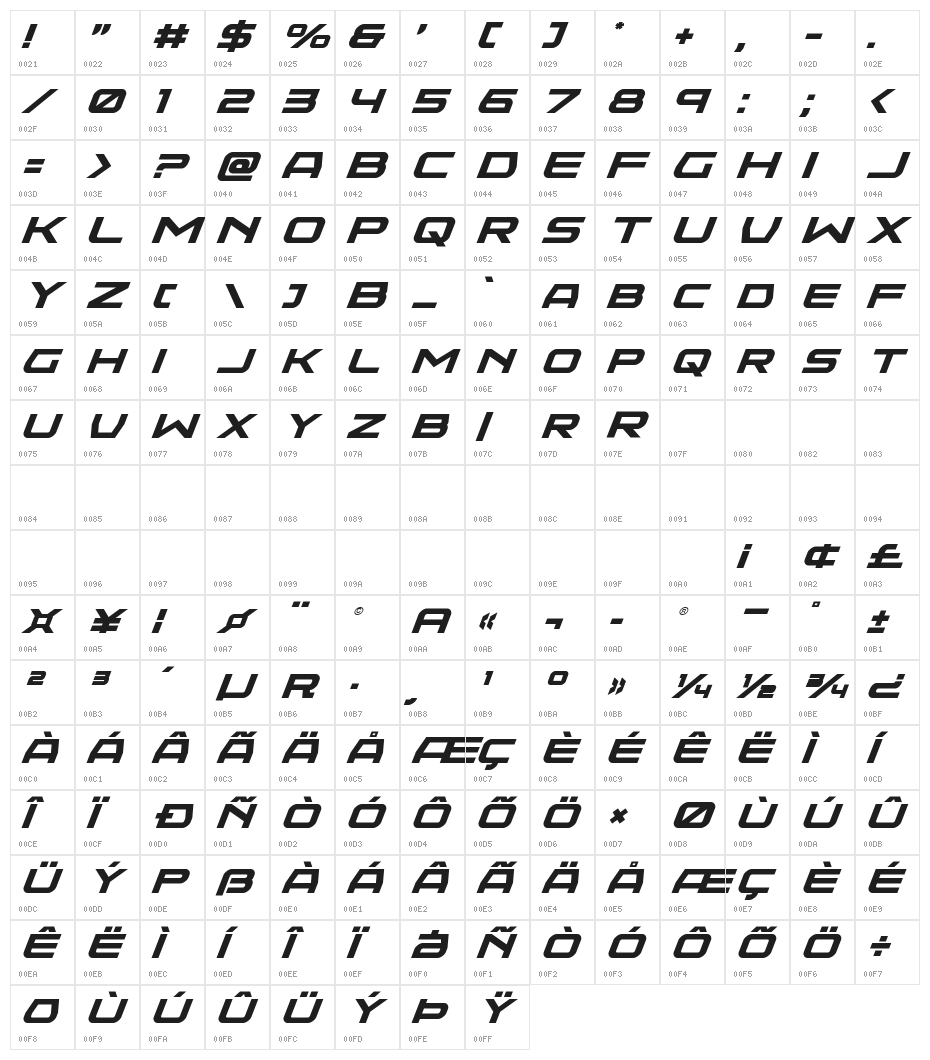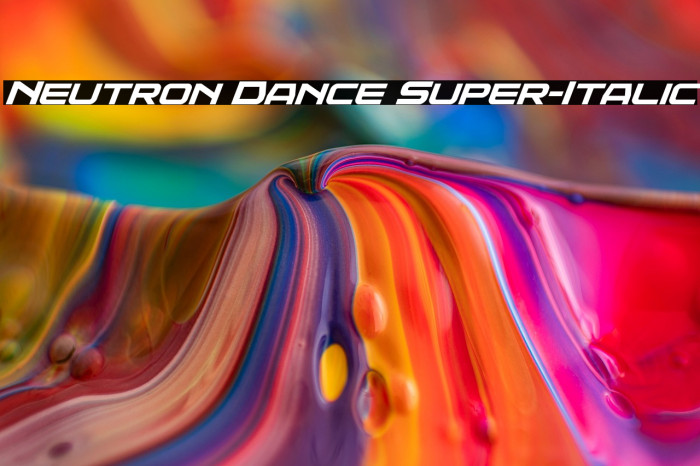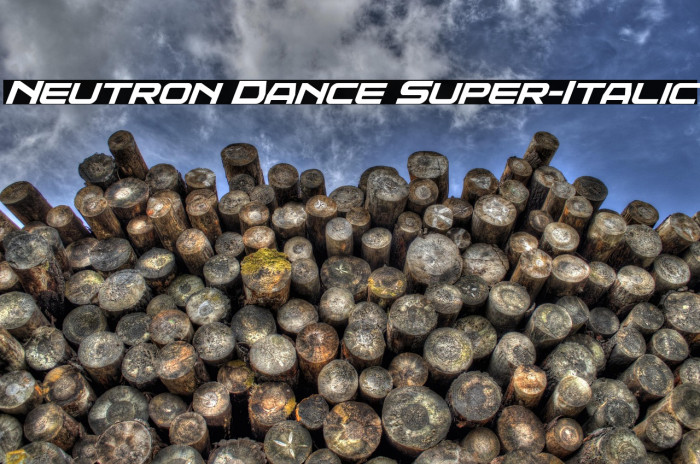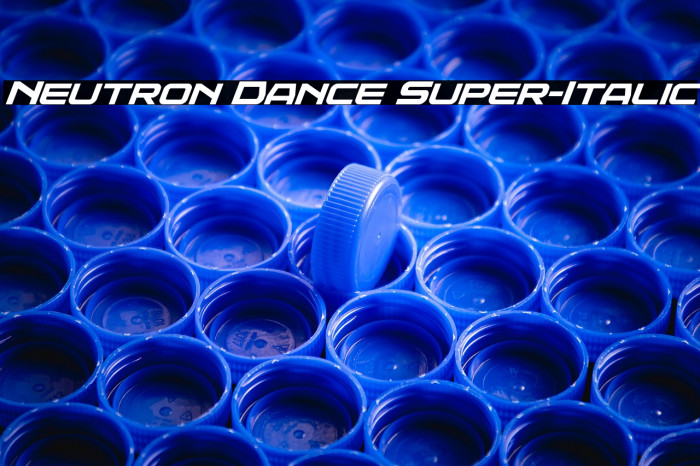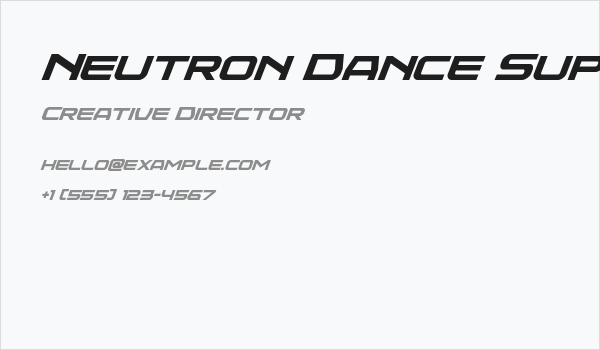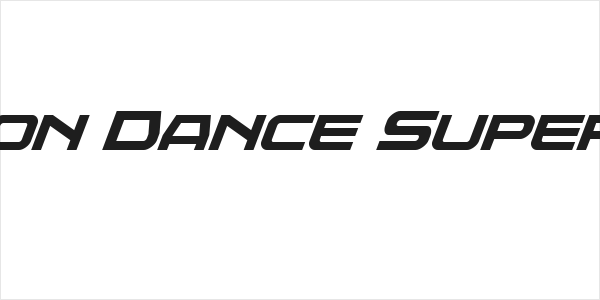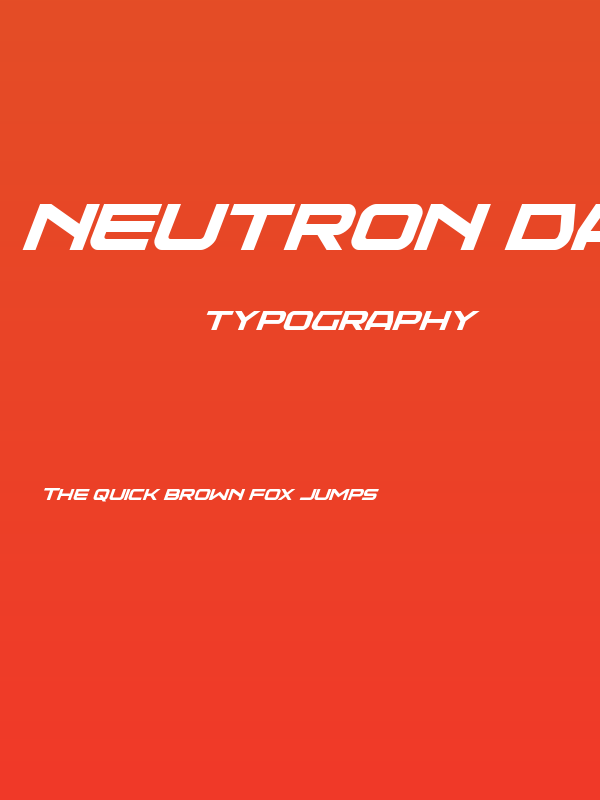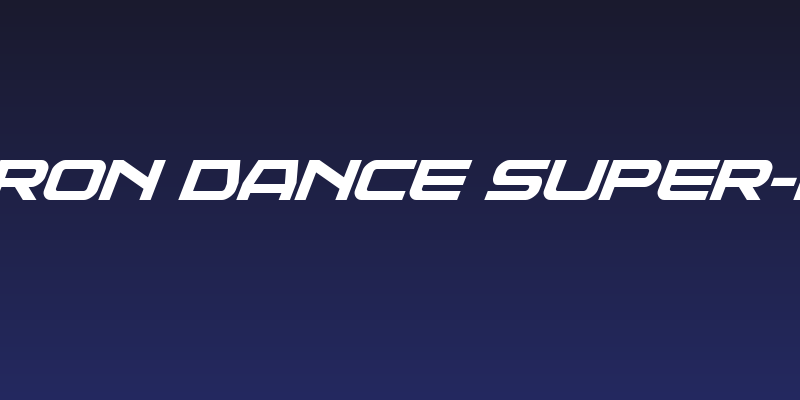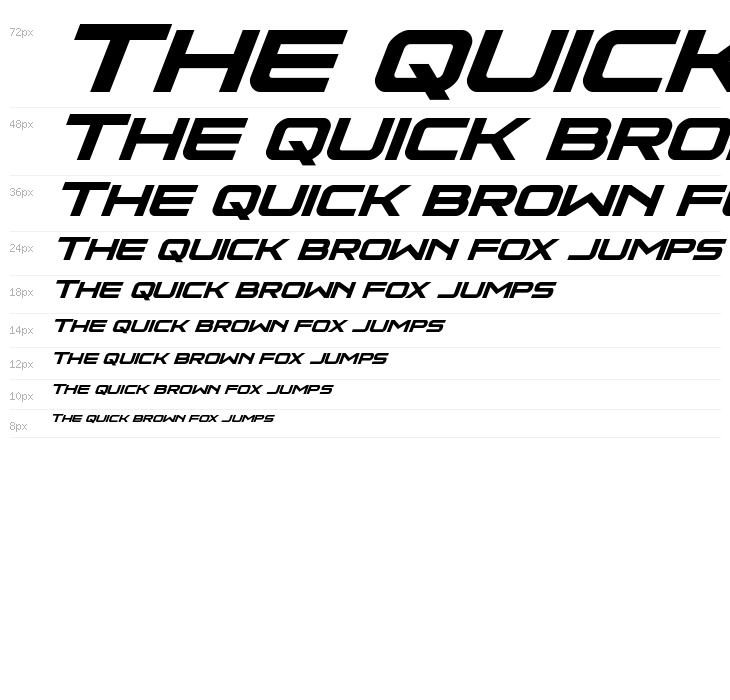
Neutron Dance Super-Italic Font
Neutron Dance Super-Italic Description
This font features a dynamic and futuristic design with a strong italic slant, giving it a sense of motion and speed. The characters are bold and angular, with sharp edges and a geometric structure that conveys a modern and tech-savvy aesthetic. The uppercase and lowercase letters maintain a consistent style, while the numerals and special characters integrate seamlessly, enhancing the font's versatility. The overall appearance is sleek and contemporary, making it ideal for projects that require a forward-thinking and energetic look.
| Proposed Projects | Ideal for technology branding, sports team logos, video game titles, and sci-fi themed designs. |